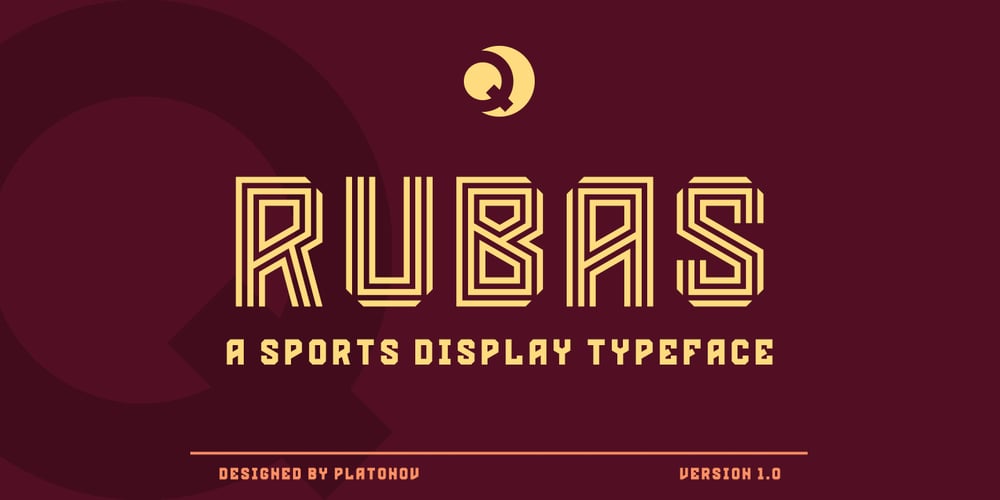
Rubas Font Family was designed by Vladimir Platonov and published by QubaType. Rubas contains 12 styles and family package options. Rubas is an all-caps display typeface with octagonal design. Rubas consists of a solid basic font (Athletics) and its eleven inline variants. With its bold and confident appearance, it’s perfect for sports logos, branding, posters, apparel design. Rubas supports many Latin-based languages including: Afrikaans, Basque, Breton, Catalan, Danish, Dutch, English, Finnish, French, Gaelic, German, Indonesian, Irish, Italian, Norwegian, Portuguese, Sami, Spanish, Swahili and Swedish. Also we add Cyrillic glyphs for supporting Russian, Ukrainian and Belarusian.